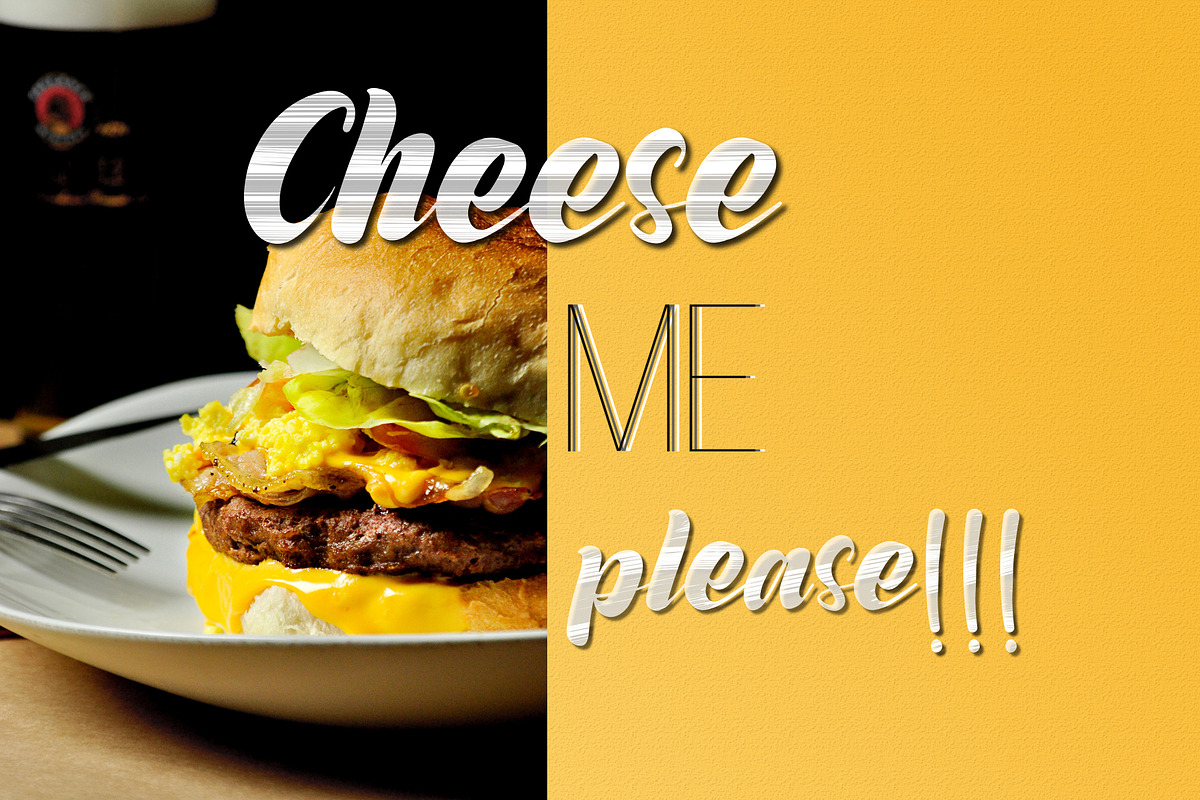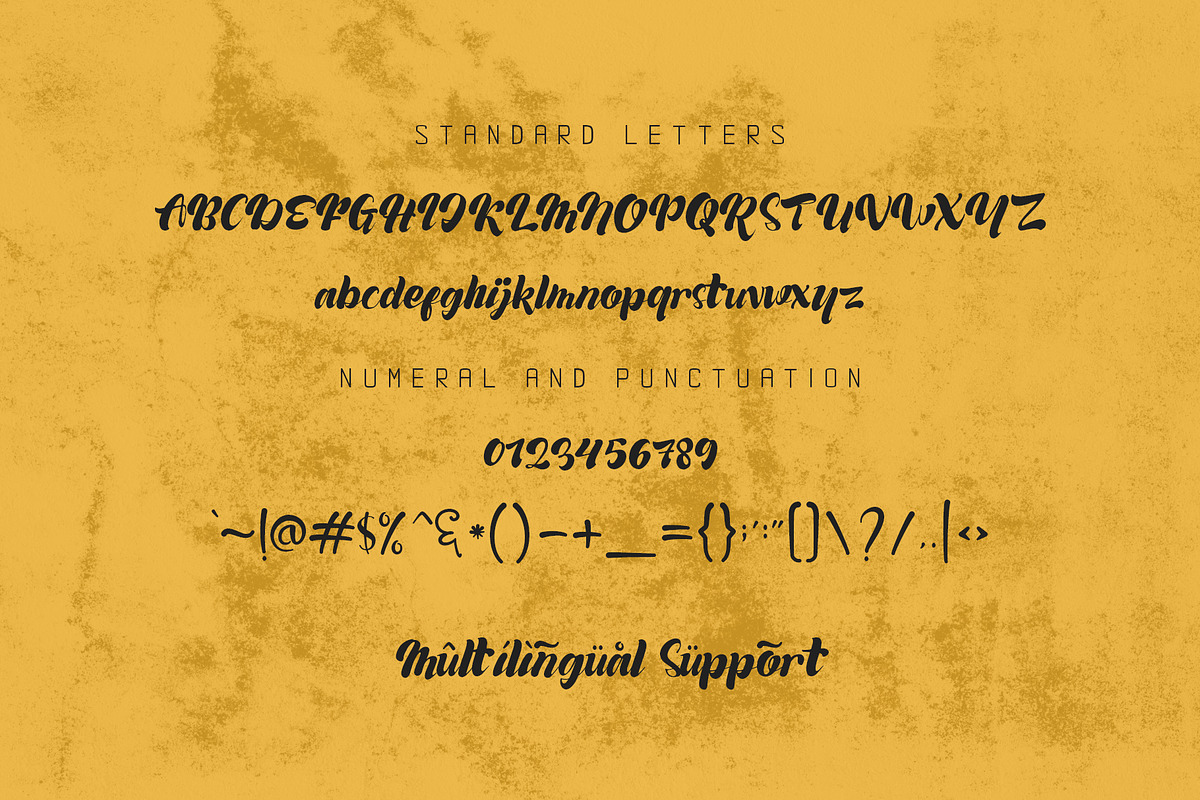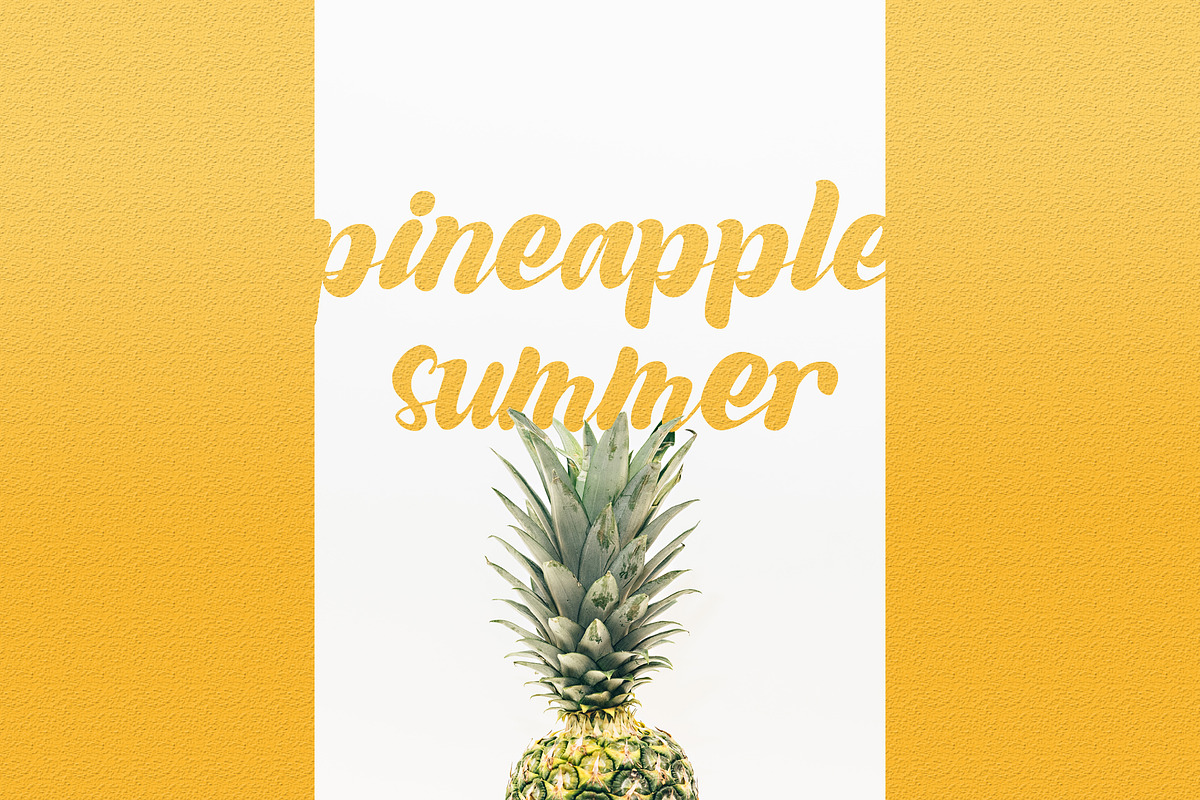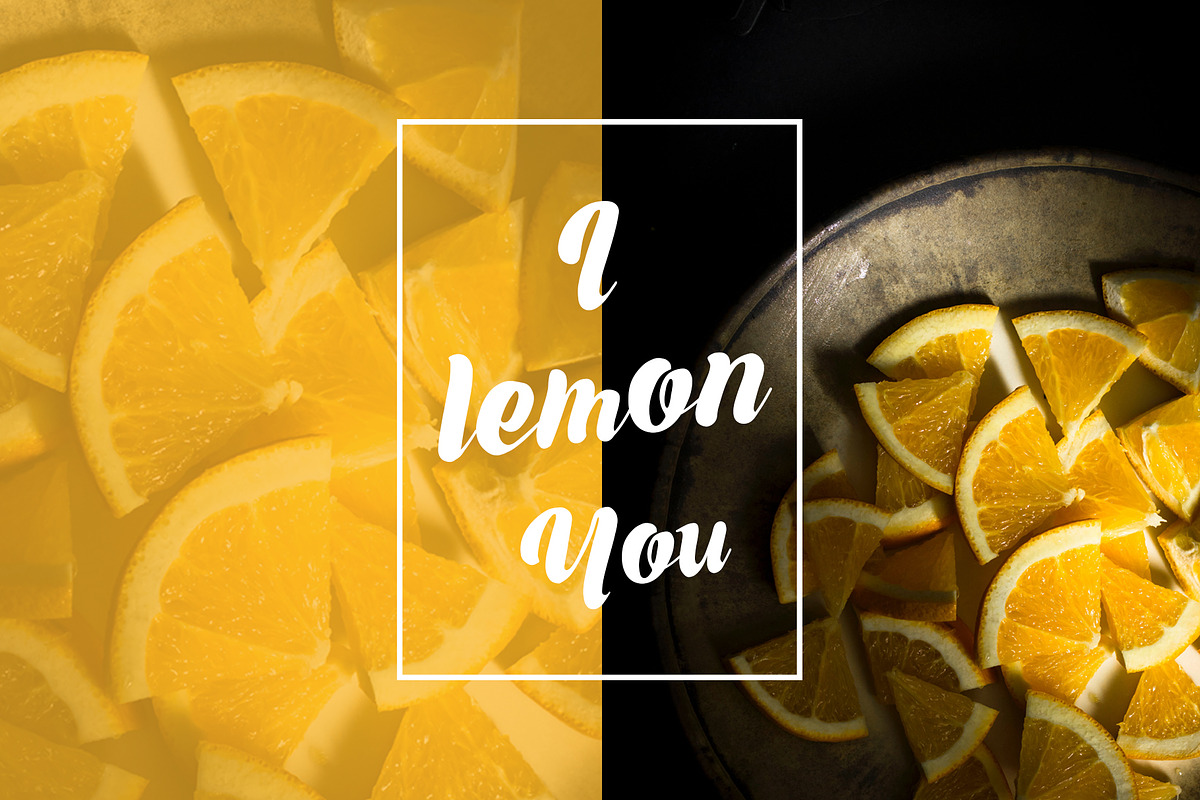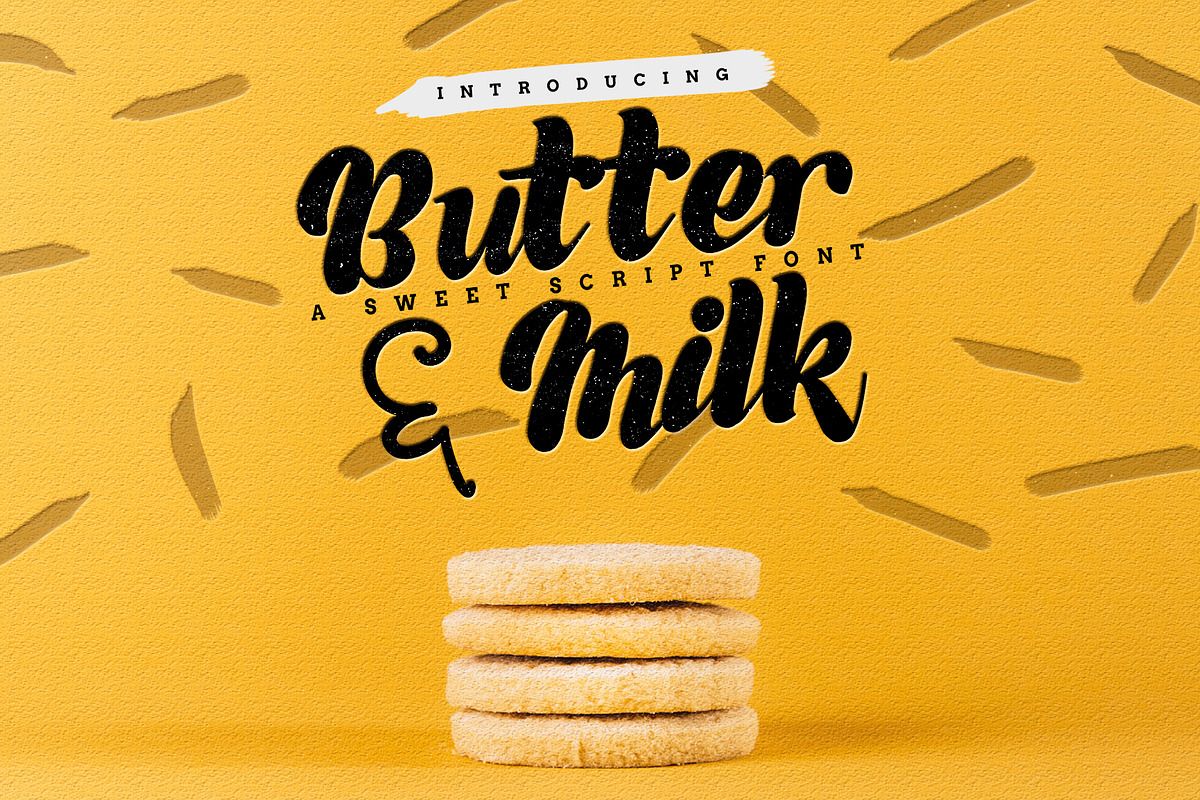
Butter & Milk - A Sweet Script Font
Butter & Milk is a totally sweet script font This font comes with chubby edges,very smooth and clean. Fonts include standard letters numbers, punctuation and multilingual support, you will feel fun and happy every word written with it
Butter & Milk works very well in Branding, logos, packaging, covers, posters, magazines, business cards, apparel, t-shirts - you name it
- -Sweet-Cute Butter & Milk is a totally sweet script font This font comes with chubby edges,very smooth and clean.
- Fonts include standard letters numbers, punctuation and multilingual support, you will feel fun and happy every word written with it Butter
Butter & Milk - A Sweet Script Font by Say Studio fits naturally into Branding, posters, packaging, typography.